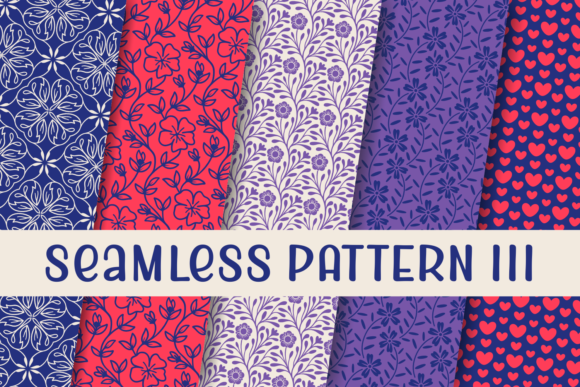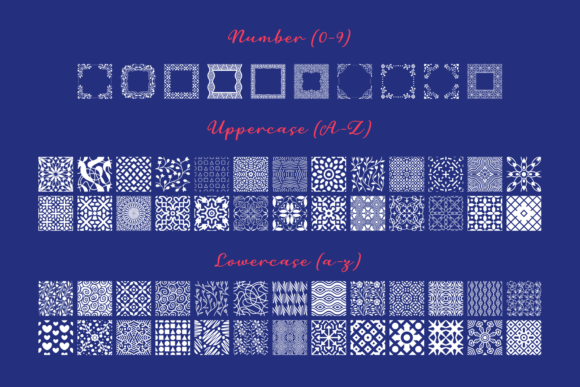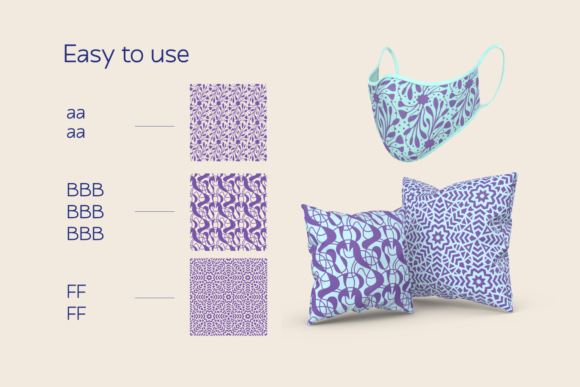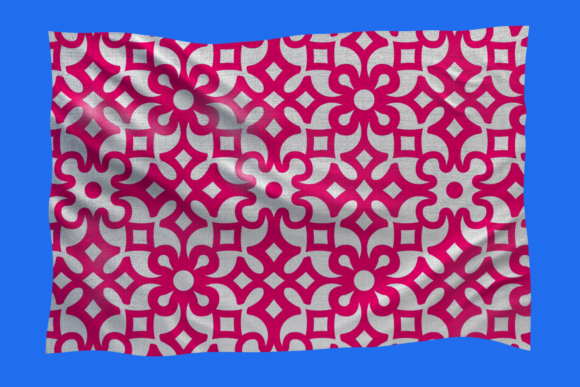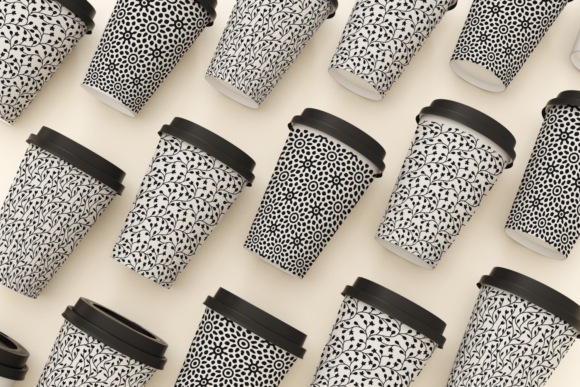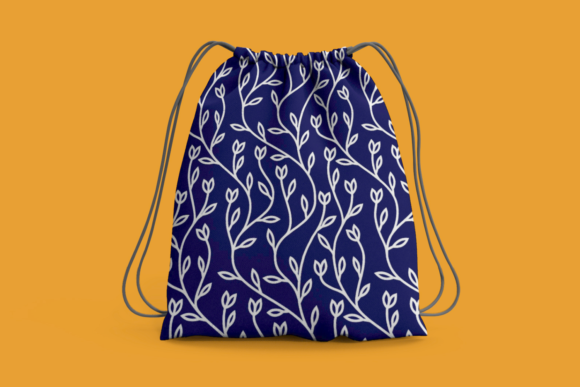
Seamless Patterns III Font
About Seamless Patterns III Font
Seamless Patterns III sounds like a wonderful dingbats font that can add a touch of beauty and uniqueness to your crafting projects. With its collection of seamless patterns, you have the opportunity to create visually stunning designs. Here are some ideas on how you can make the most of Seamless Patterns III for your crafting projects:
1. Textile Design: Use the seamless patterns from the font to create eye-catching textile designs. Whether you’re working on fabric prints, wallpapers, or even custom clothing, the patterns can add depth and visual interest to your creations. Experiment with different colors and combinations to achieve the desired effect.
2. Scrapbooking: Incorporate the seamless patterns into your scrapbooking projects to create visually appealing backgrounds, borders, or embellishments. The intricate and detailed designs can add a unique touch to your scrapbook pages, making them stand out and capturing attention.
3. Stationery and Card Making: Enhance your stationery and card making projects by using the seamless patterns as decorative elements. Create beautiful backgrounds, envelope liners, or borders using the patterns to give your creations a professional and artistic look. It’s an excellent way to add texture and visual interest to your paper crafts.
4. Digital Design: If you’re working on digital designs such as websites, social media graphics, or digital art, the seamless patterns can be a valuable asset. Incorporate them as backgrounds, textures, or overlays to create visually stunning visuals. The patterns can add depth and dimension to your designs, making them more captivating.
5. Home Decor: Take your crafting projects beyond paper and fabric by using the seamless patterns to create unique home decor items. Consider using them for decoupage projects, furniture painting, or even stenciling on walls. The patterns can transform ordinary items into works of art and add a personalized touch to your living space.
Remember to explore the different patterns available in Seamless Patterns III and experiment with various color combinations and scale to achieve the desired effect. With this beautiful dingbats font, you can create outstanding crafting projects that are visually striking and truly unique.